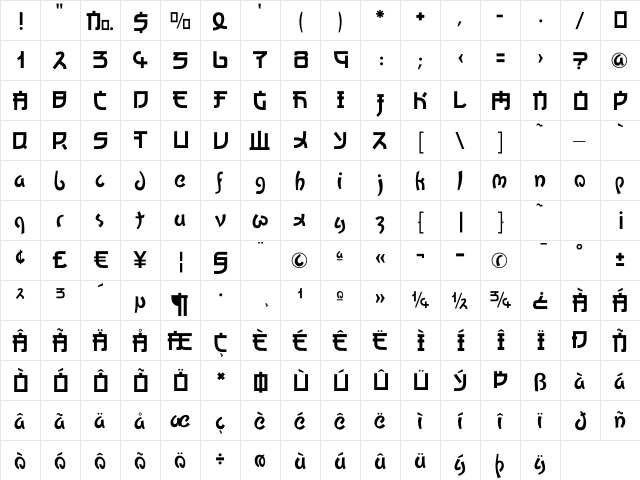
Kato Regular
Design Context for Kato Typeface
Kato is a composed and adaptable typeface that performs quietly and consistently across a wide range of design contexts.